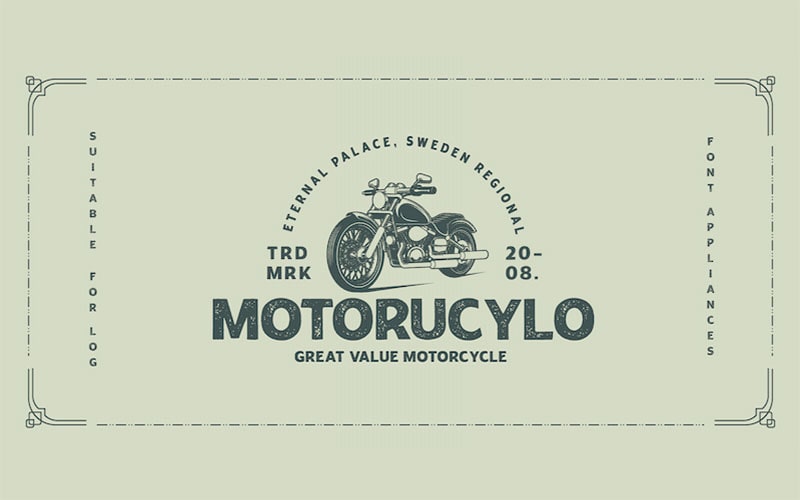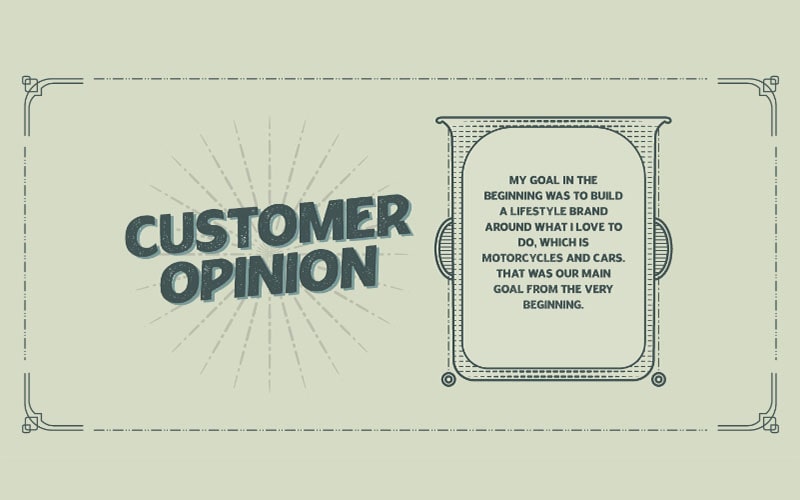
The Rougant Font is a distinctive typeface that seamlessly merges elegance with versatility, making it an exceptional choice for a wide range of design projects.
This typeface was designed by a prominent typographer Mans Greback renowned for their ability to blend traditional design principles with contemporary aesthetics.
This font stands as a testament to their skill in creating typefaces that are both visually appealing and highly functional. The Rougant Font family comprises a variety of styles to cater to different design needs.
Styles are Rougant Regular, Rougant Bold, Rougant Italic, and Rougant Bold Italic. Each typeface retains the core characteristics of Rougant Font, offering variations in weight and style to enhance its versatility and usability.
Rougant Font
Features clean lines and balanced proportions, ensuring aesthetic appeal. Supports a wide range of languages, enhancing its versatility for global use.
Its clean lines, balanced proportions, and comprehensive character set ensure that your text is not only readable but also visually appealing. Suitable for a variety of applications, from editorial design to branding.